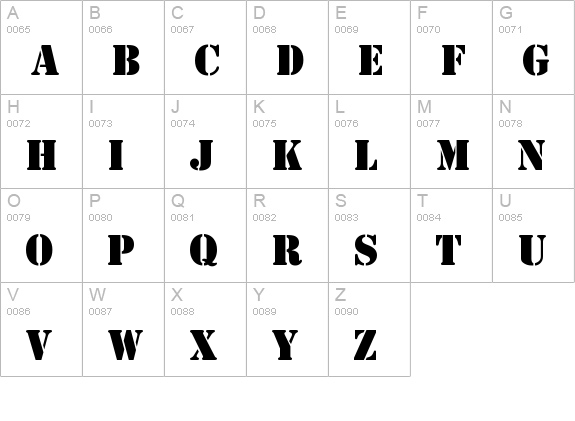
GI Stencil Normal Font Details
GI Stencil Normal is the standard, neutral variant in the GI typeface family \xE2\x80\x94 well suited to general body text, paragraphs, and standard typographic work.
GI Stencil Normal font is a versatile and stylish typeface that is perfect for creating eye-catching designs. With its clean lines and bold appearance, this font is ideal for projects that require a modern and professional look. Whether you are designing posters, logos, or branding materials, GI Stencil Normal font will make your work stand out. What's even better is that GI Stencil Normal font is available for free download at FontsMarket.com. This means you can easily access this fantastic font without any cost. Don't miss out on the opportunity to add GI Stencil Normal font to your collection and elevate your design projects to the next level.